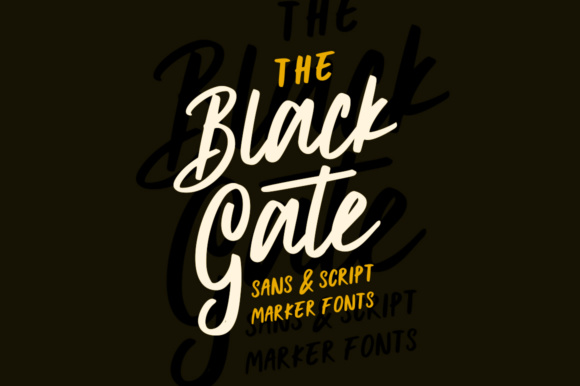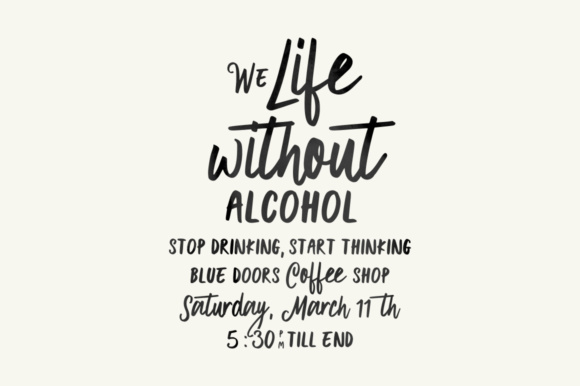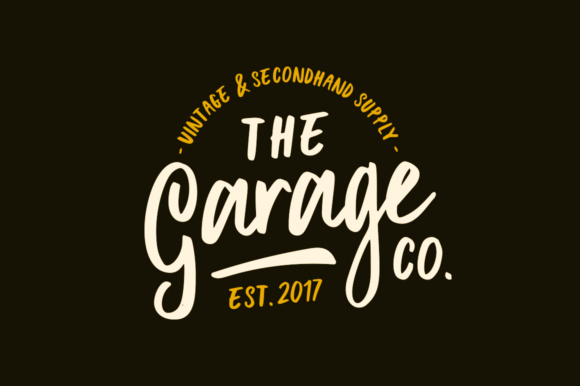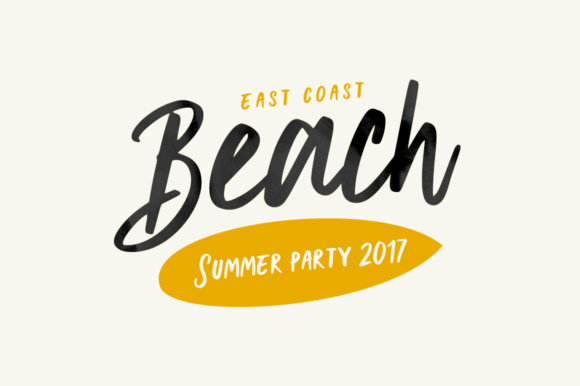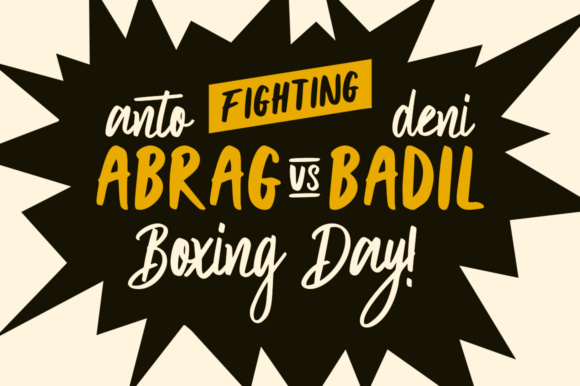
Black Gate Font
About Black Gate Font
Black Gate is a hand made marker font, inspired by vintage signs and advertising. Black Gate gives a natural feel to your design. Black Gate Script is perfect for branding, labels, greeting cards, advertising, badges, and much more.